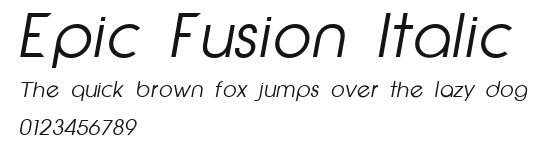
Epic Fusion Italic Preview
• Font Name: Epic Fusion Italic
• Font ID: JeroenKant: Epic Fusion: 2011
• Full Font Name: EpicFusion-Italic
• Version: Version 1.000 2011 initial release
• PostScript Name: EpicFusion-Italic
• Character Count: 217
• Designer: Jeroen Kant
• Manufacturer: Jeroen Kant
About Epic Fusion Italic.ttf
Epic Fusion Italic.ttf is a modern, elegant sans-serif font designed for ultimate readability and visual harmony. Perfect for branding, headlines, web design, and print materials.